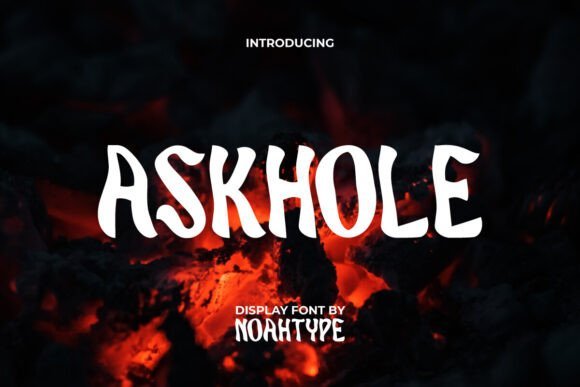
The Font that’ll Make You Shudder: Introducing Askhole Font
You know that moment when you’re brainstorming ideas for a project and suddenly, the perfect font pops into your head? It’s like a spark of creativity that sets off a chain reaction of excitement. For designers, finding the right font can make all the difference between a good design and a great one. And that’s exactly what Askhole Font is here to offer – a horror display font that’s sure to give your designs a spooky twist.
Askhole Font is designed to add an eerie touch to your designs, with its wavy bold line shape giving it an attractive, haunting look. From brand images to business cards, catalogs, and more, this versatile font is perfect for a wide range of applications. With Askhole Font, you’ll be able to add a touch of horror to your designs that’s sure to leave a lasting impression.
Askhole Font Key Features
- Unique Characteristics: Askhole features a unique blend of geometric and organic shapes, creating a friendly and approachable aesthetic.
- Weight and Style: The font is available in multiple weights (light, regular, bold, and extra bold) and styles (italic and oblique), offering flexibility for designers.
Askhole Font Review
As a designer, I was excited to dive into the Askhole Font, and overall, I’d say it’s a mixed bag. ✨ One thing that really works well is the font’s playful, conversational vibe. It’s perfect for titles and headings that need a bit of personality. The font’s quirky charm makes it stand out in a crowded design landscape.
- ✨ Unique, attention-grabbing style that’s perfect for headings and titles
- ✨ Great for designers looking to add a bit of whimsy to their work
- ✨ Works well in digital and print applications
However, there are some limitations to consider. ⚠️ The font can feel a bit overwhelming if used in large blocks of text. It’s best to use it sparingly, reserving it for key moments in your design. Additionally, the font’s unique style can be a bit distracting if not paired with complementary typography.
Overall, the Askhole Font is a great choice for designers who want to add a bit of personality to their work. With careful use, it can be a powerful tool in your design arsenal. However, be mindful of its limitations and use it judiciously.
The Askhole Font is ideal for:
- Creating humorous or satirical content.
- Adding a touch of irony or sarcasm to your designs.
- Designing memes or social media graphics.